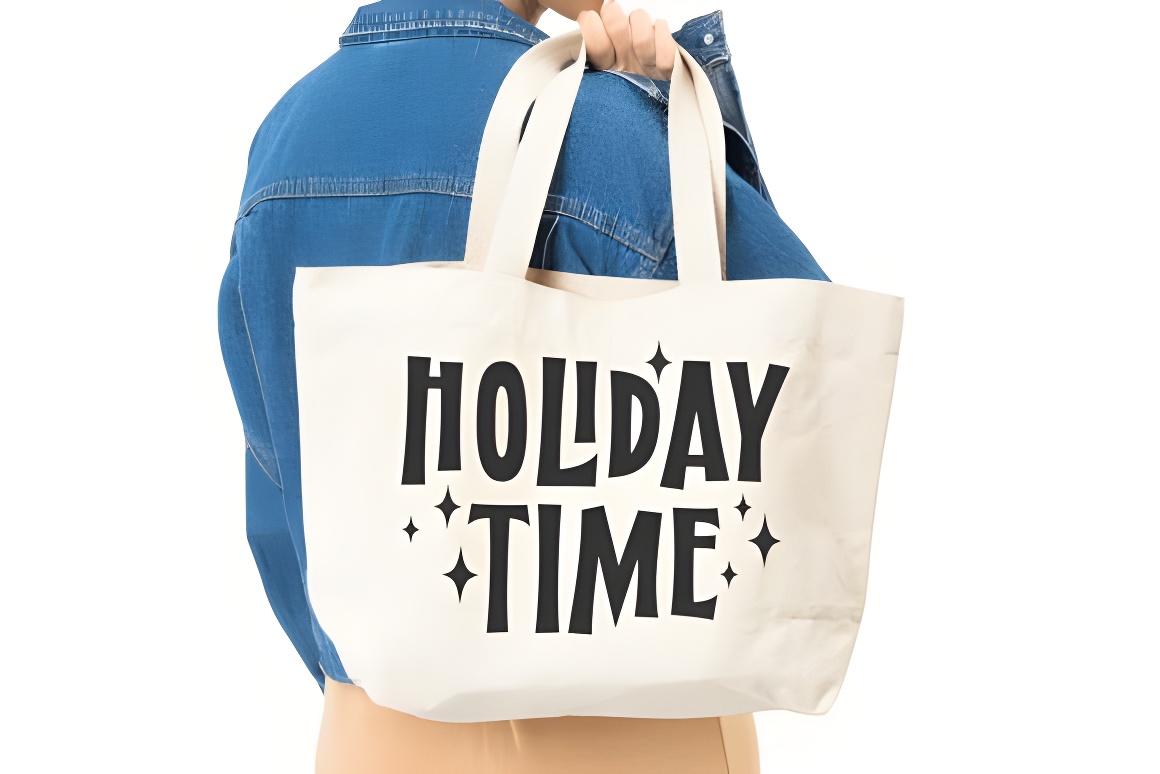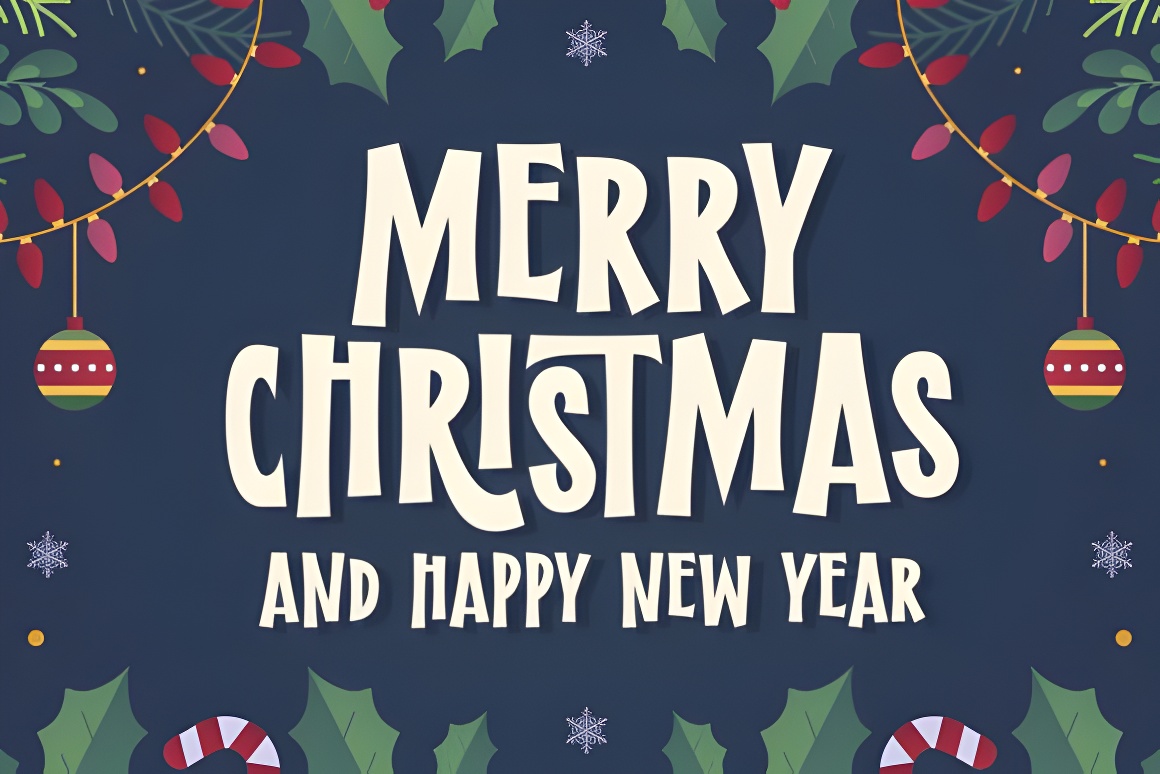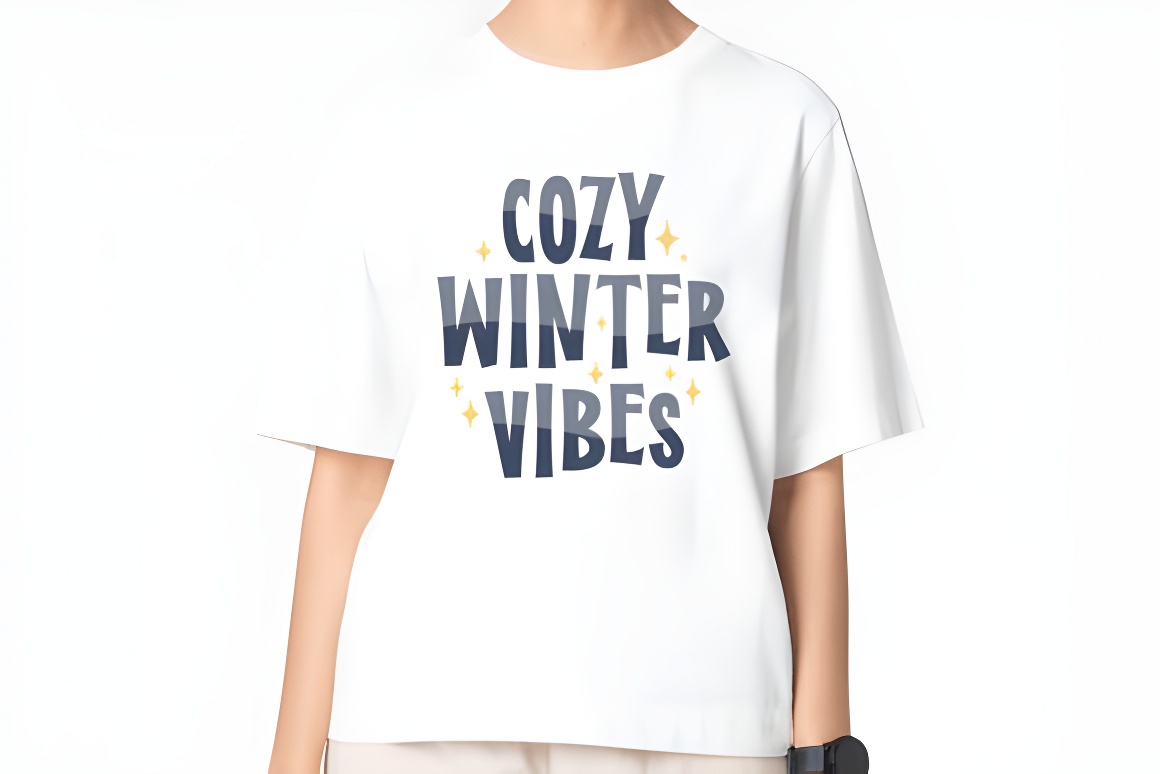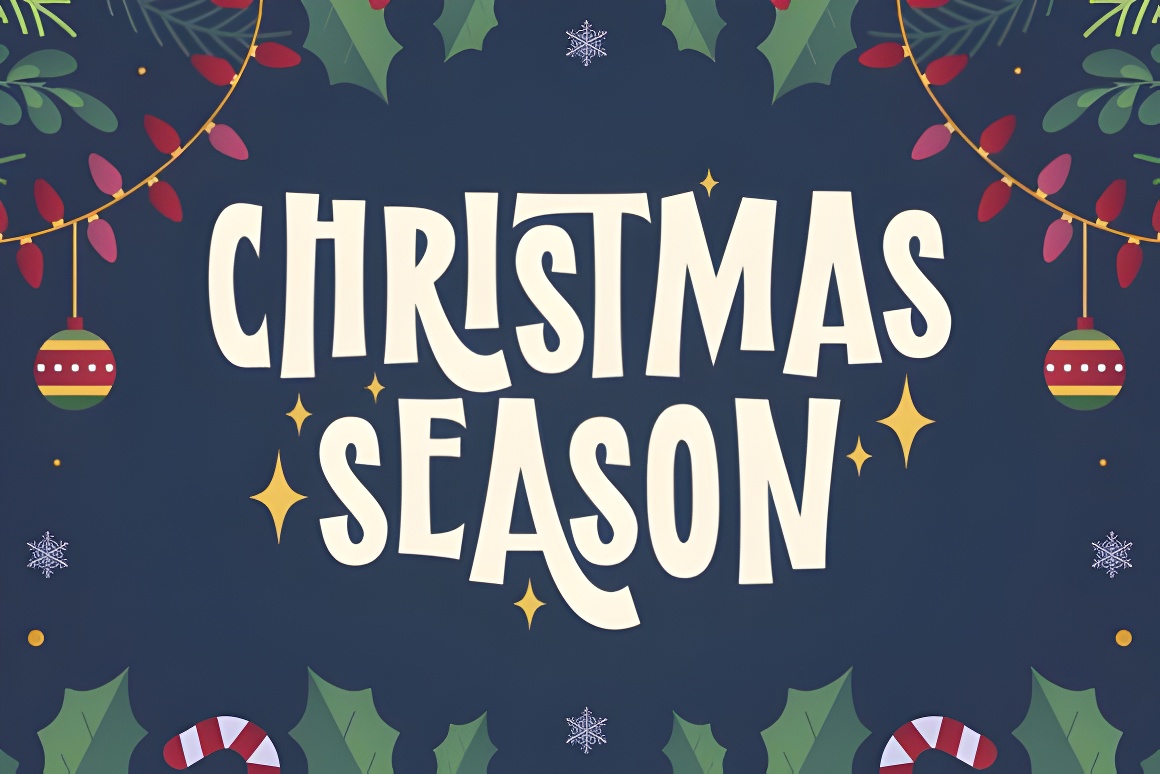
Blinky Christmas: Festive Holiday Display Font Bold cheerful Christmas display font with playful sparkle! Perfect for holiday cards, party invitations, festive merchandise & merry designs. Add joyful magic to your seasonal projects!